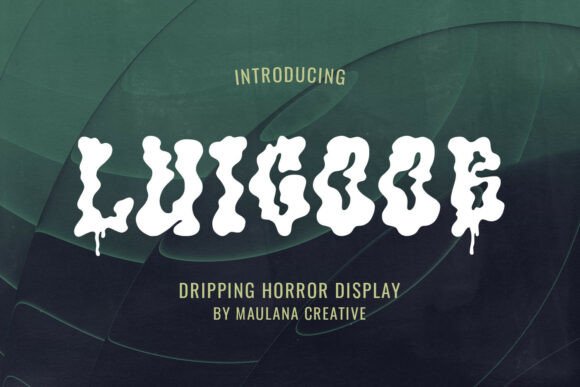
Luicoob: A Chilling Font for Bold Branding
It was a quiet afternoon when I opened my inbox and saw the message: "Your new packaging design is ready." I had been working on a fresh look for my small candle business, and the time had come to update the labels. But as I stared at the old font, something felt off—too plain, too generic. That’s when I discovered Luicoob.
Luicoob is a display font that instantly brings a sense of mystery and intrigue. Its bold, chunky letters have a unique edge that feels both modern and eerie. It's not just a font—it's a mood. For a small business like mine, where every detail matters, this kind of typography can make all the difference.
Luicoob for Candle Labels and Mysterious Branding
When I first tried Luicoob on my candle labels, it transformed the whole look. The font gave my products an air of sophistication and mystery that matched the calming, earthy scents of my candles. It wasn’t just about looking good—it was about creating a brand identity that felt authentic and intentional.
Using Luicoob for labels helped me stand out in a crowded market. Customers could immediately tell that my brand had a story to tell. Whether it was a label for a lavender-scented candle or a dark, smoky blend, the font added a layer of depth that made the product feel more special.
One thing I learned early on is that Luicoob works best for headlines, short phrases, and logos. It’s not ideal for long paragraphs, but that’s okay. As a small business owner, I don’t need to use it everywhere. I save it for the places where impact matters most.
Luicoob for Boutique Tags and Unique Packaging Design
I also used Luicoob on my boutique tags. These little stickers are often the first thing customers see when they pick up a product. With Luicoob, they looked more polished and professional. It gave my items a cohesive, branded feel that made them stand out on the shelf.
Another place where Luicoob shines is in packaging design. I used it on the boxes for my handmade soaps and bath salts. The font added a touch of drama that matched the luxurious feel of the products. It wasn’t just about aesthetics—it was about making sure every element of my brand felt connected.
One tip I found helpful was pairing Luicoob with a clean sans serif font for body text. This way, the boldness of Luicoob didn’t overwhelm the design. It created a balance that felt both creative and approachable.
Luicoob for Social Media Graphics and Online Shop Displays
As an online seller, I knew that social media graphics were crucial. I started using Luicoob for my Instagram posts and Facebook ads. The font caught attention right away, especially on mobile screens where visual impact is everything.
On my online shop, I used Luicoob for product titles and banners. It helped create a strong visual hierarchy that guided customers through the site. The font added a sense of excitement and energy that made my shop feel more dynamic.
What I love about Luicoob is how it can be used across different platforms. Whether it's a printed label, a digital ad, or a social media post, it maintains its personality. That consistency is key for building a recognizable brand.
Luicoob for Menus and Café Branding
Even though I run a candle business, I’ve seen how Luicoob can work in other settings. A local café owner once shared how she used it for her menu. The font gave the menu a dramatic flair that matched the cozy, mysterious vibe of the café.
For any business that wants to create a memorable visual identity, Luicoob offers a powerful tool. It’s not just about looking good—it’s about making a statement. When customers see your branding, they should feel something. Luicoob helps you do that.
Another thing to consider is readability. While Luicoob is bold, it’s still legible even on small labels or mobile screens. Just make sure to use it in the right context and avoid overusing it. Less is often more when it comes to display fonts.
Luicoob for Logo Design and Creative Branding
Logo design is one of the areas where Luicoob really shines. I used it for my brand logo, and it immediately gave my business a more professional and cohesive look. The font’s unique style helped differentiate my brand from others in the same space.
Whether you're starting a new business or rebranding an existing one, Luicoob can help you create a strong visual identity. It’s a versatile font that can be adapted to many different styles and industries. From beauty brands to creative startups, it adds a level of sophistication that’s hard to match.